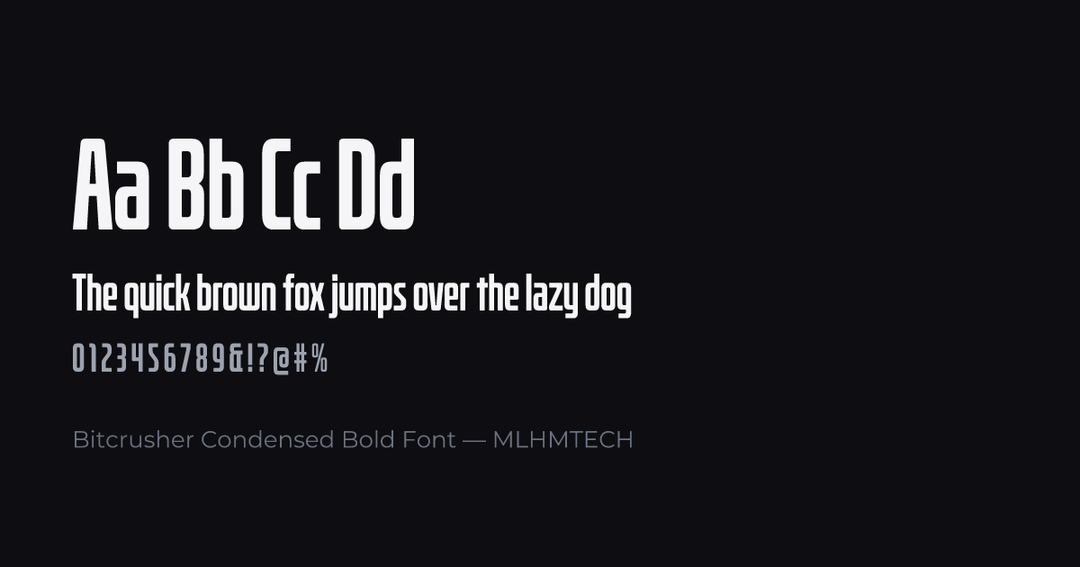
Bitcrusher Condensed Bold Font
Bitcrusher Condensed Bold is a high-impact display font with a condensed, bold aesthetic. Ideal for titles, thumbnails, and eye-catching graphics.
Bitcrusher Condensed Bold is a display font that commands attention. Its condensed letterforms and heavy weight make it perfect for video titles, lower thirds, thumbnails, and any design that needs a punchy, modern look.
Add a touch of bold personality to your projects with Bitcrusher Condensed Bold. Its unique character will make your content stand out.